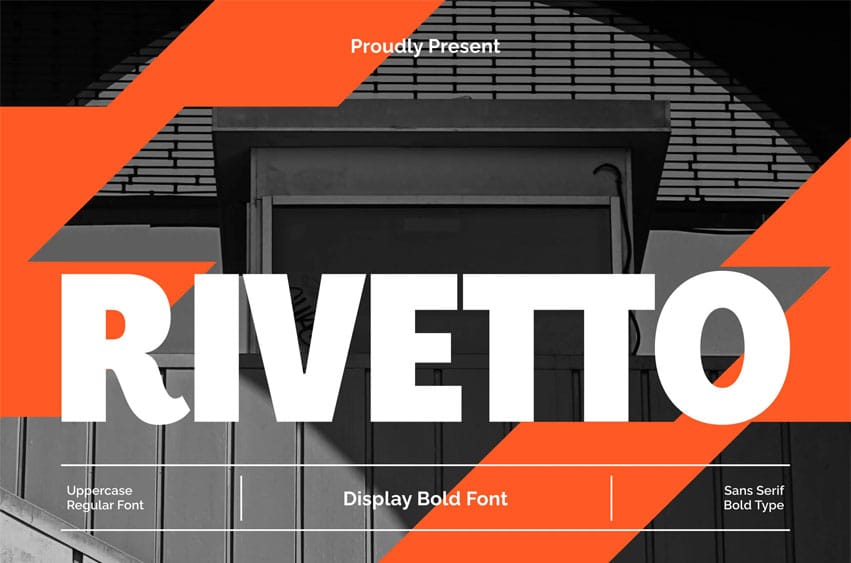
Rivetto Font is a bold display font with strong, clean letterforms designed for headlines, posters, branding, and modern visual identities.
Its solid, confident style delivers maximum impact while staying highly readable, making it perfect for creative projects that need authority, clarity, and standout typography across social media, advertising, and editorial design.